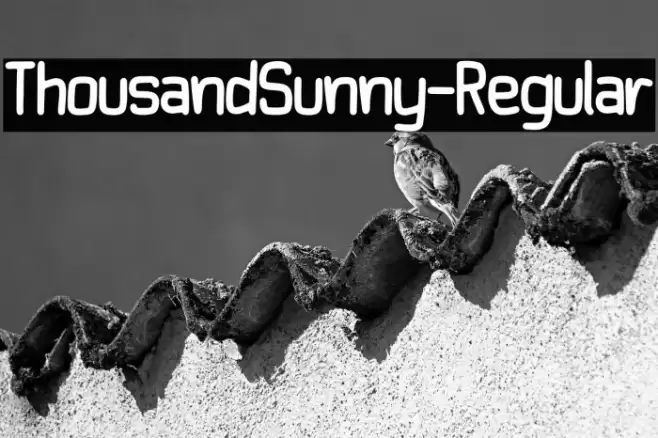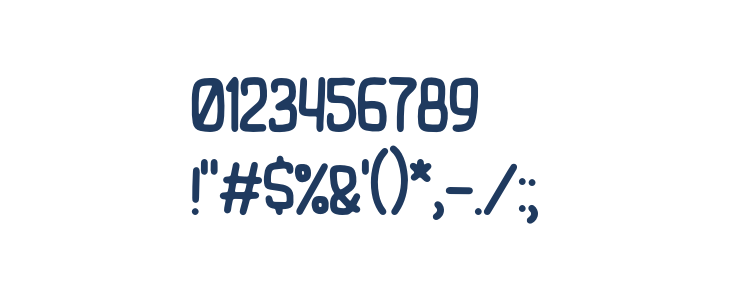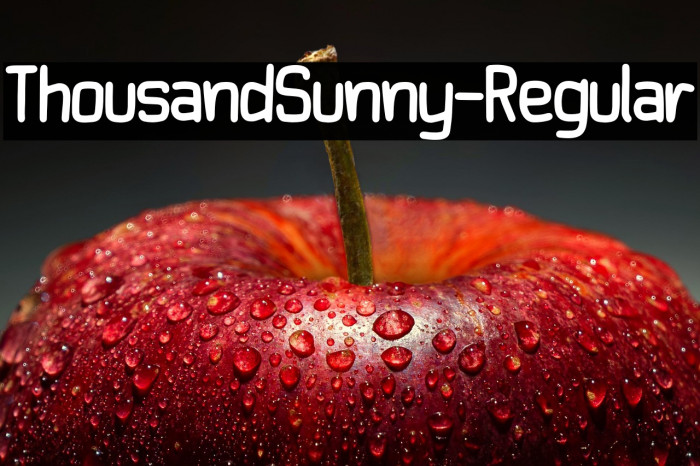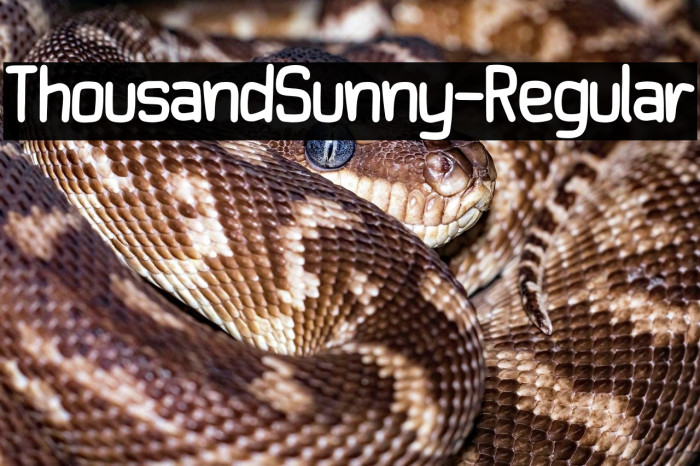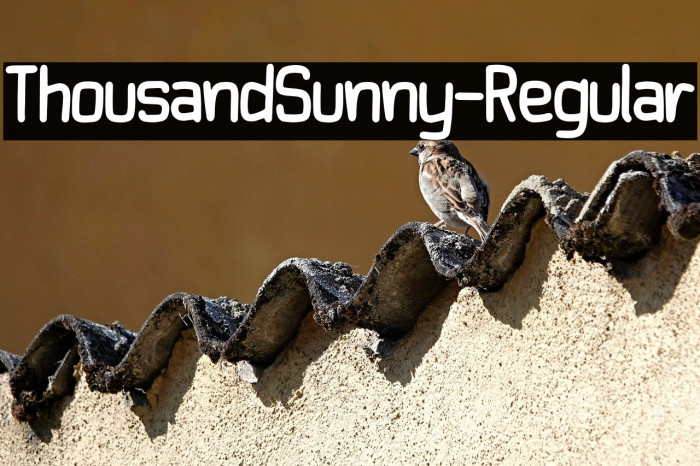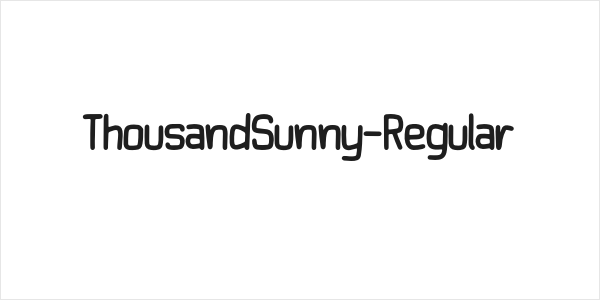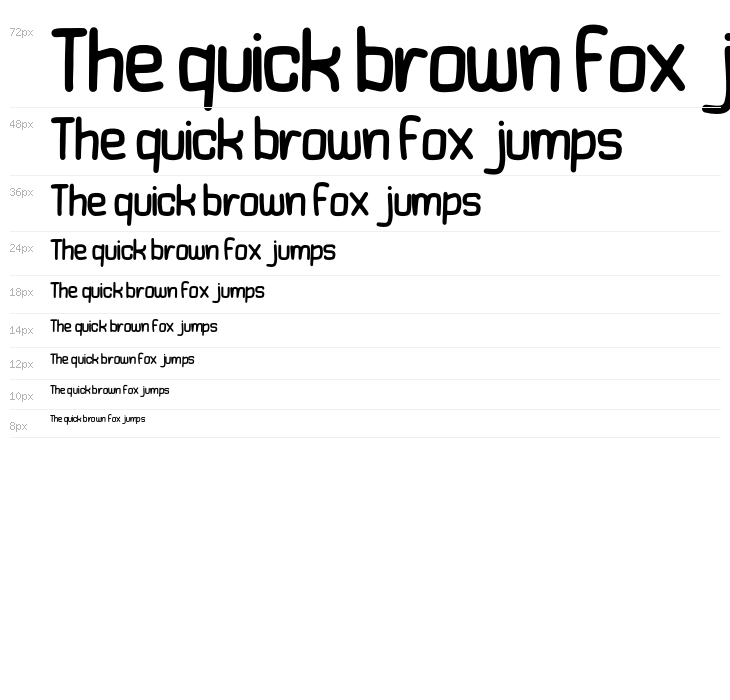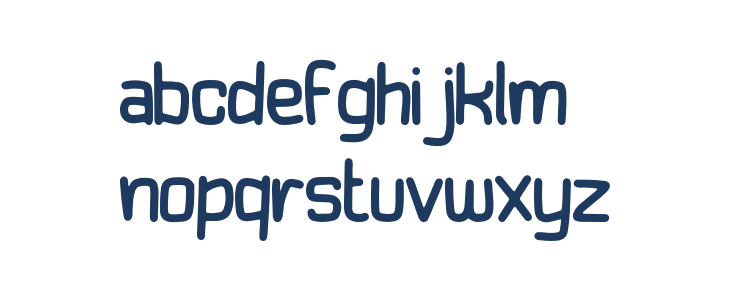
ThousandSunny-Regular Font
ThousandSunny-Regular Description
This font features a playful and rounded style, characterized by its smooth curves and uniform stroke width. The letters are slightly elongated, giving a whimsical and friendly appearance. The uppercase and lowercase letters maintain a consistent design, with rounded edges and a casual feel. Numbers and special characters follow the same rounded and approachable aesthetic, making the font versatile for various uses. Its simplicity and readability make it suitable for informal and creative projects.
A playful, rounded font with smooth curves and a friendly appearance from Comic fonts.
- Proposed Projects: Ideal for children's books, playful branding, casual invitations, and creative posters.
- Overall Style: Playful
- Use Case: Headlines, Logos, Informal Text